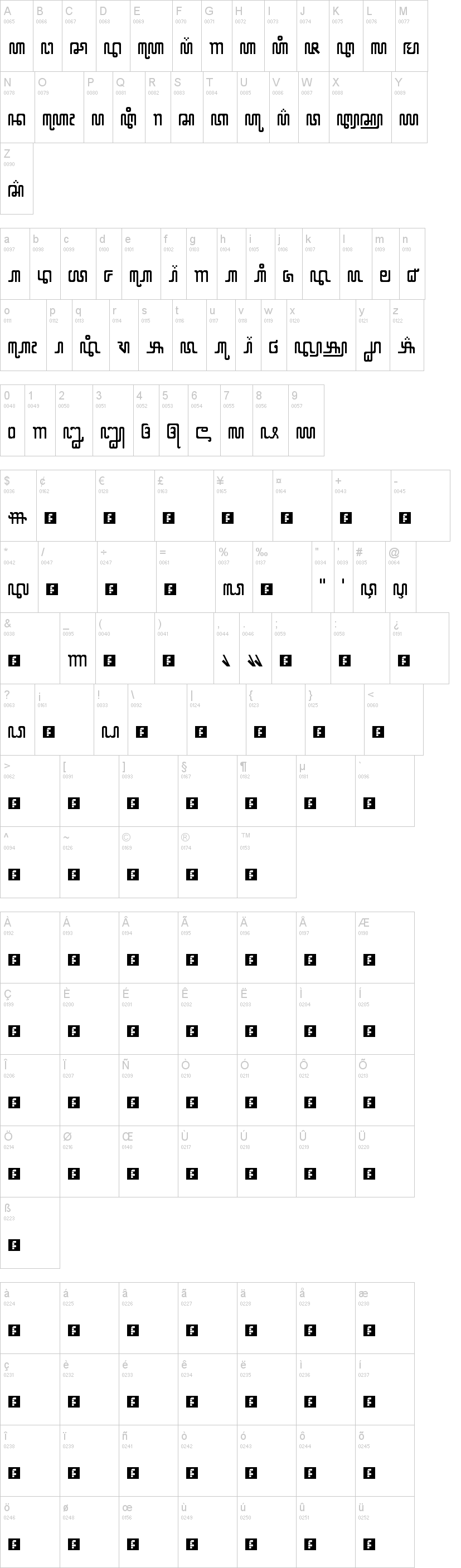
Шрифт X Code from East
this font is javanese script (hanacaraka). However, this font is dingbats..
This font is not reflect the real javanese script (hanacaraka).It's not using the correct rules of javanese script writing